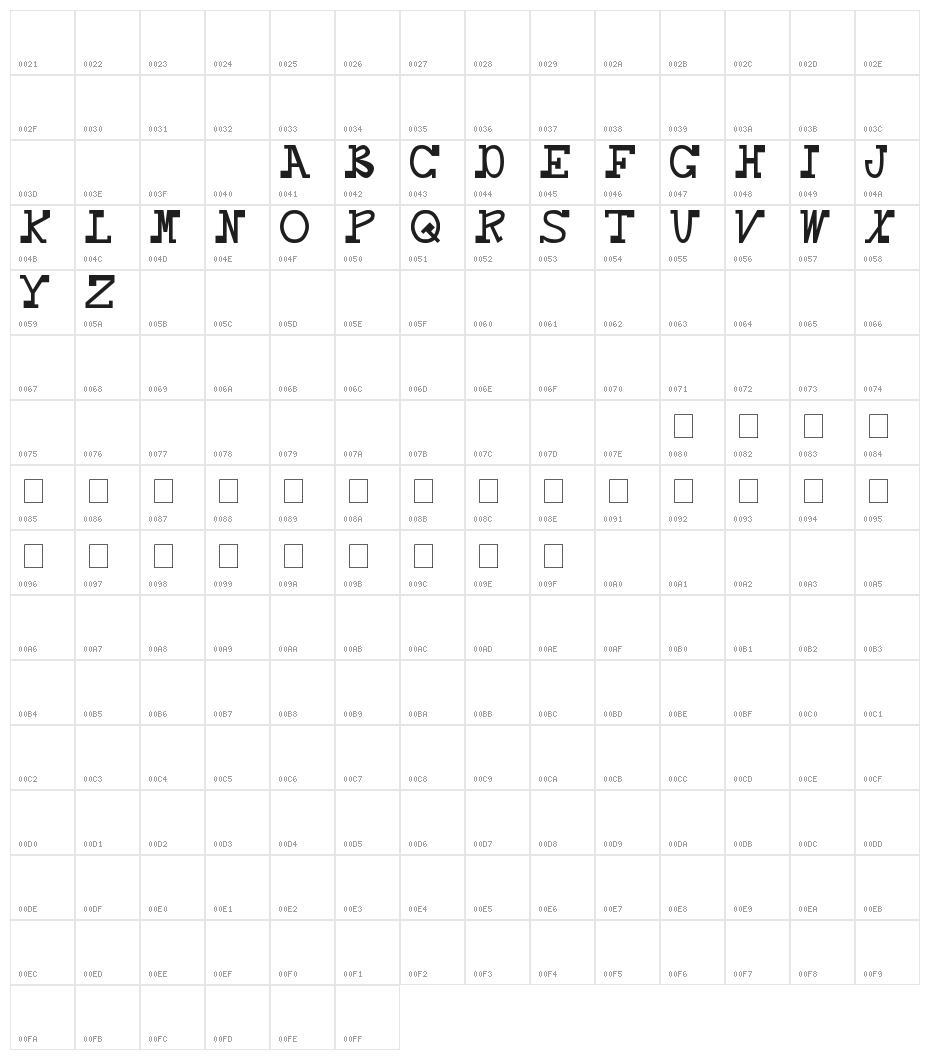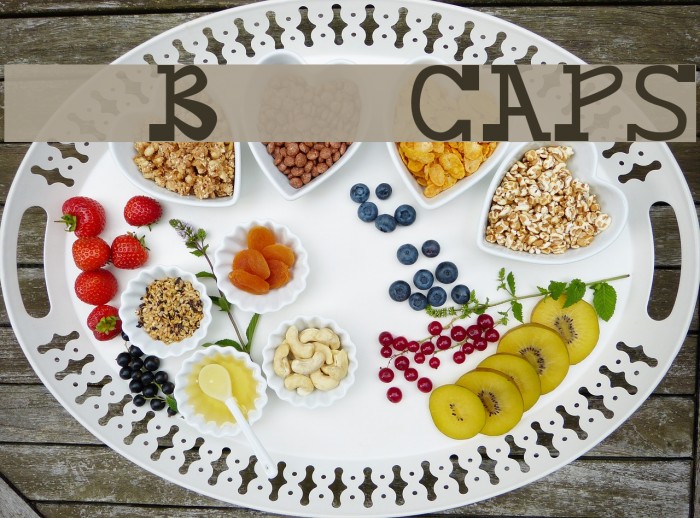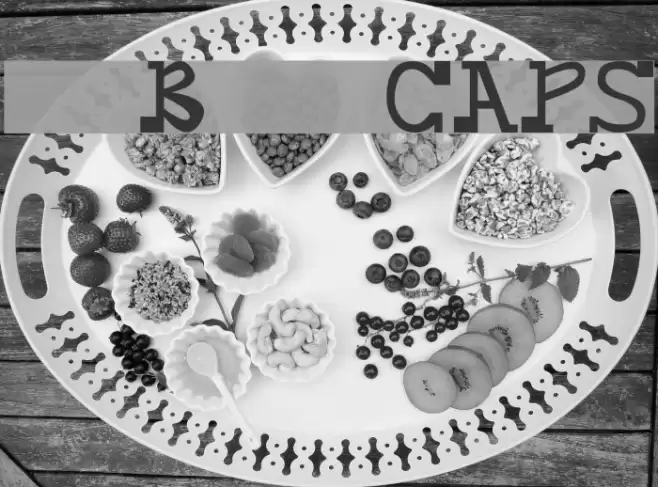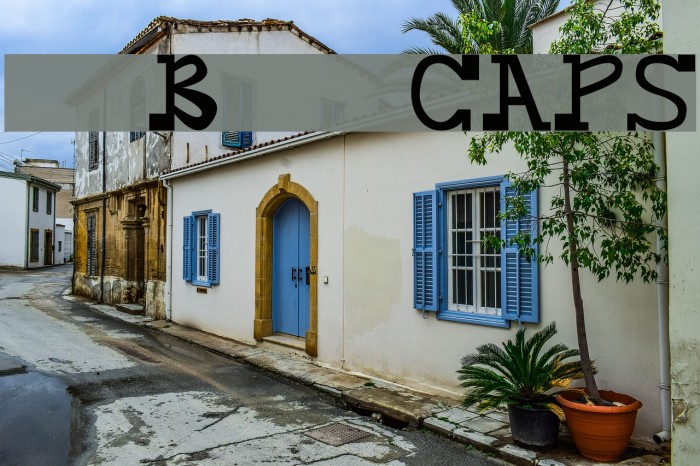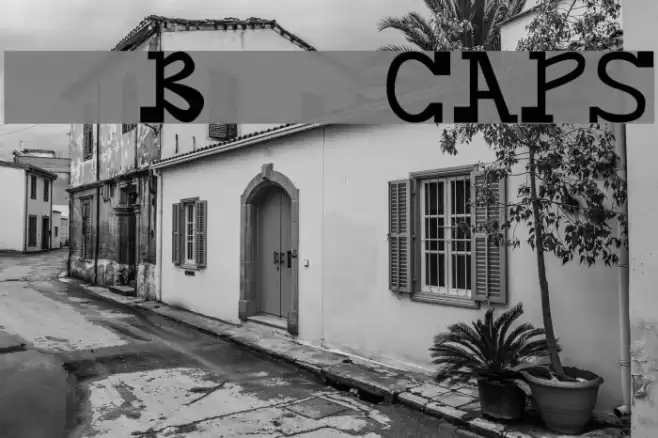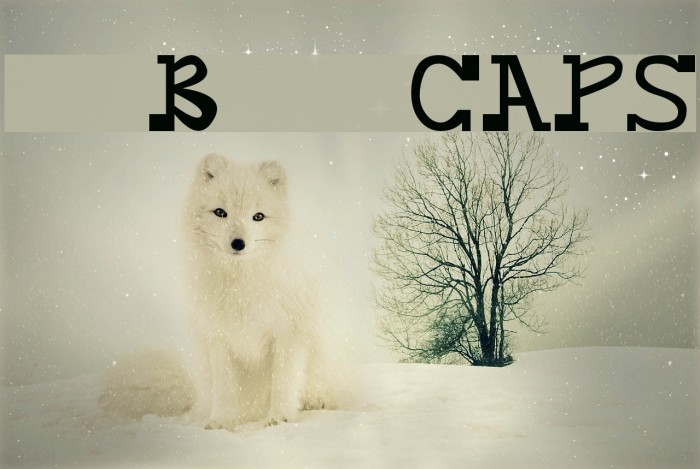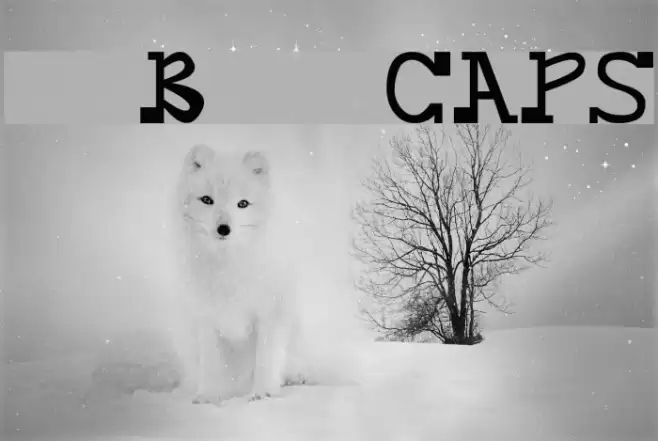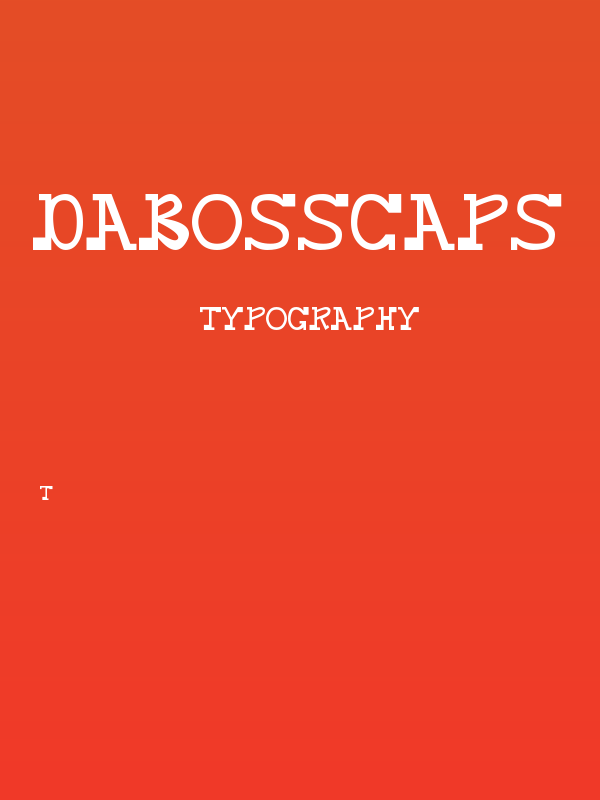
daBossCAPS Font
daBossCAPS Description
This font features a bold and playful design with a unique twist on traditional letterforms. Each character is crafted with a sense of whimsy, incorporating unexpected curves and angles that give it a distinctive personality. The bold strokes and geometric elements create a strong visual impact, making it ideal for attention-grabbing headlines or creative projects. The uppercase letters are particularly striking, with exaggerated serifs and a sense of movement that adds dynamism to the text. This font is perfect for projects that require a touch of fun and creativity, such as posters, branding, or any design that aims to stand out.
| Overall Style | Playful, Creative |
| Proposed Projects | Ideal for posters, branding, and creative projects that need to stand out. |